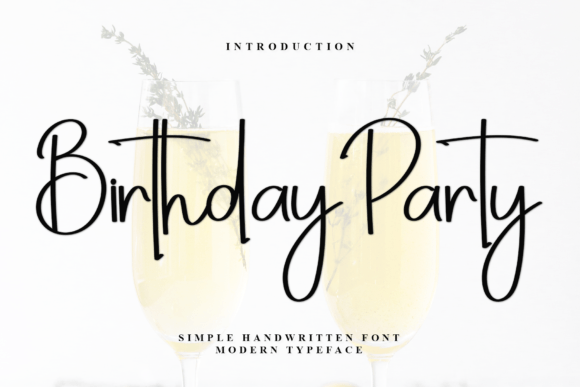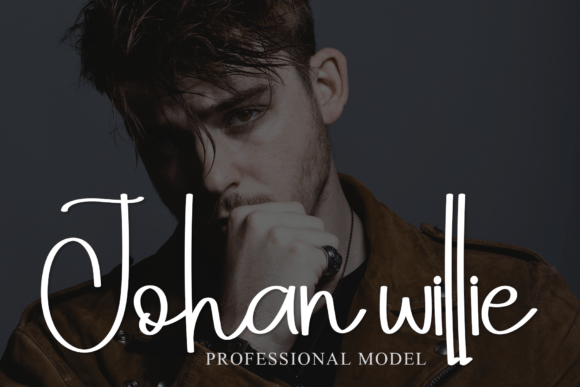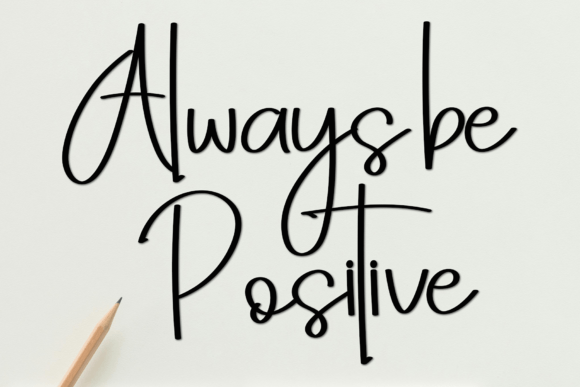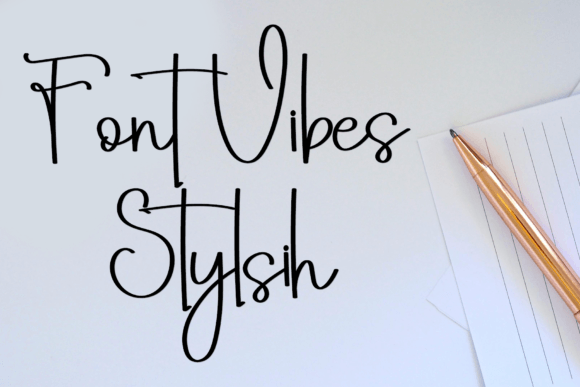
About the Birthday Party Font
Introducing the Birthday Party Font, a beautifully crafted typeface designed to elevate your creative projects. Birthday Party is a lovely and timeless handwritten font. It is the best choice for creating eye catching logos, branding and quotes. Every letter has a unique and beautiful touch, which will make your design come alive!
Birthday Party Font Example